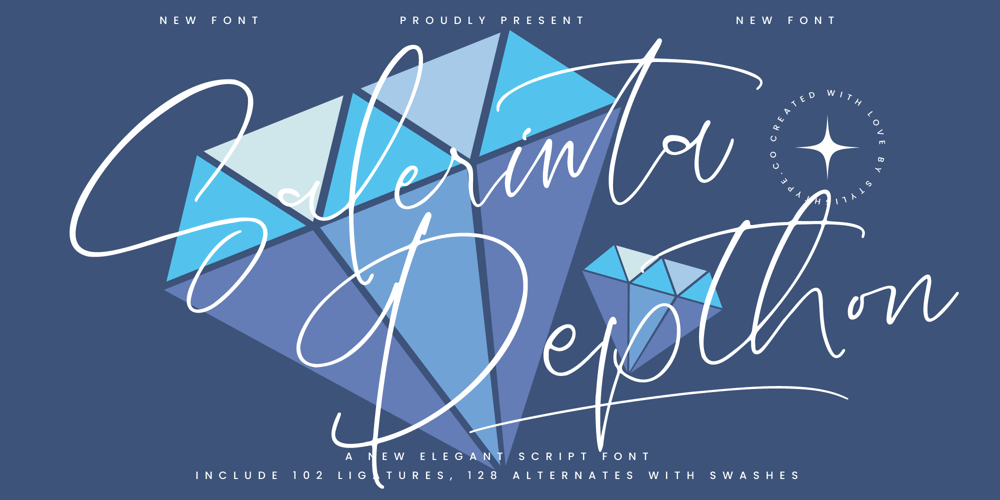
Salerinta Depthon Font Family was designed by Heru Utama Putra and published by Stylishtype Studio. Salerinta Depthon contains 2 styles and family package options. Salerinta Depthon – New Elegant Script Font , from Stylishtype , Suitable for any projects such as: logos, branding projects, homeware designs, product packaging, mugs, quotes, posters, shopping bags, t-shirts, book covers, name card, invitation cards, greeting cards, label, photography, watermark, special events, and all your other luxury and beautiful projects that need a Luxury Script taste.